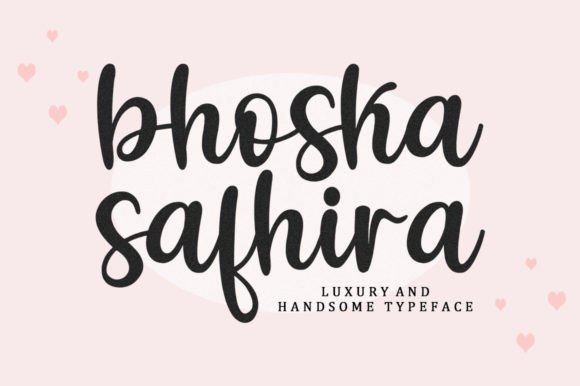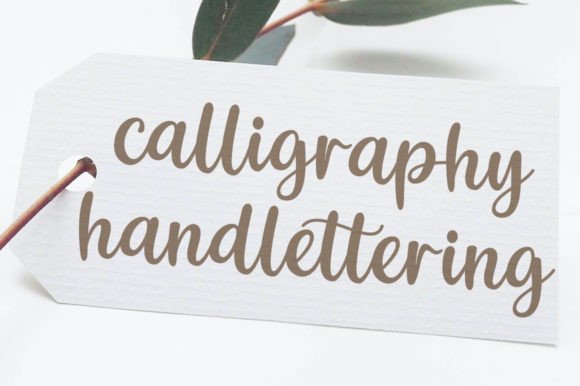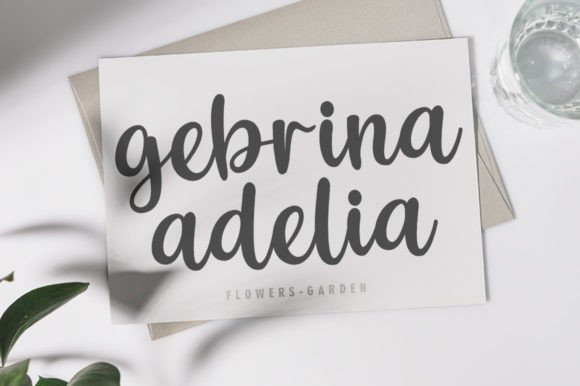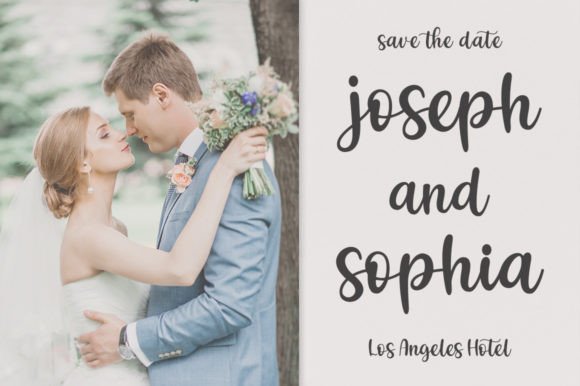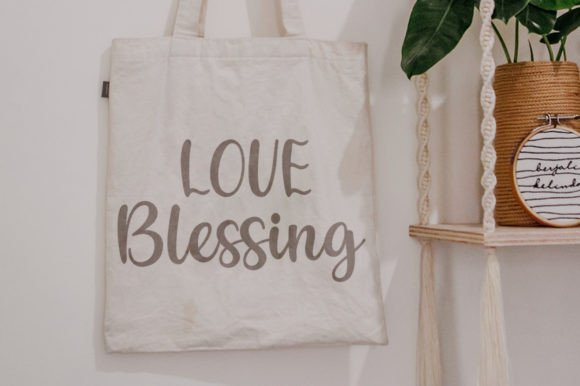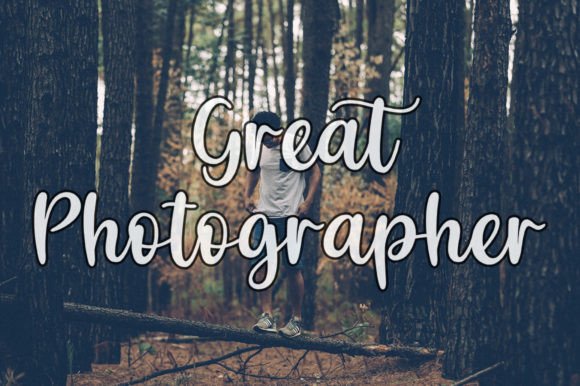
Bhoska Safhira Font
About Bhoska Safhira Font
**Bhoska Safhira – An Elegantly Handwritten Font for Timeless Designs**
Bhoska Safhira is a beautifully crafted handwritten font that embodies elegance, distinction, and timeless style. Here’s why Bhoska Safhira is the perfect choice for adding sophistication to your creative projects:
1. **Elegant Handwriting:** Bhoska Safhira features the artistry of elegant handwriting, making it ideal for projects where a touch of refinement is required.
2. **Distinctive Style:** This font boasts a distinct and unique style that sets it apart, making your designs stand out with its individuality.
3. **Versatile Usage:** Bhoska Safhira is suitable for a wide range of creative endeavors, from branding and packaging to invitations, logos, and more.
4. **Timeless Appeal:** The font’s timeless design ensures that it remains relevant and attractive for years to come, making it a valuable asset to your font collection.
5. **Clean and Neat:** Bhoska Safhira’s clean lines and neat presentation guarantee that your text looks polished and professional in any context.
6. **Sophisticated Designs:** Use this font to create sophisticated designs for a variety of applications, from wedding invitations to high-end branding projects.
7. **Logo Enhancement:** Elevate your brand’s identity with Bhoska Safhira, adding a touch of elegance and charm to your logo design.
8. **Inviting Typography:** Craft invitations and event materials that are warm, inviting, and visually appealing with this font’s elegant script.
9. **Branding Excellence:** Incorporate Bhoska Safhira into your branding materials, such as business cards, letterheads, and promotional materials, to exude professionalism.
10. **Website Aesthetics:** Enhance your website’s aesthetics with stylish headers, banners, and typography that reflect your brand’s sophistication.
11. **Custom Packaging:** Create custom packaging designs that leave a lasting impression on customers with Bhoska Safhira’s elegant typeface.
12. **Personal Touch:** Add a personal touch to your projects, whether it’s crafting heartfelt messages or designing unique gifts and cards.
13. **Neat and Readable:** Bhoska Safhira’s readability ensures that your messages are easily understood, making it perfect for various applications.
14. **Artistic Craftsmanship:** This font’s artistic craftsmanship brings a touch of artistry to your typography, enhancing the overall appeal of your designs.
15. **Endless Creativity:** Unleash your creativity and explore countless design possibilities with Bhoska Safhira as your trusted companion.
Bhoska Safhira is the epitome of elegance in handwritten fonts, making it an excellent choice for designers and creators who appreciate timeless style and distinctive flair. With its clean, neat presentation and versatile usage, this font is destined to become a cherished addition to your font library, elevating your projects to new levels of sophistication and charm.